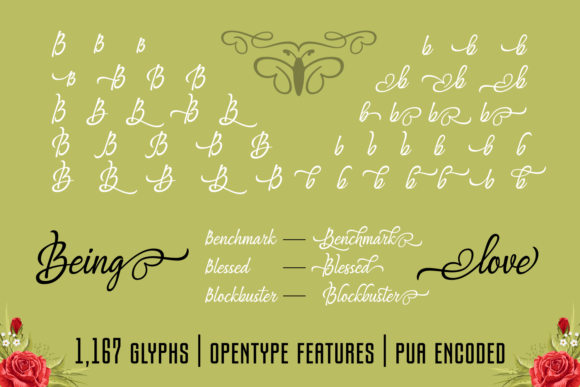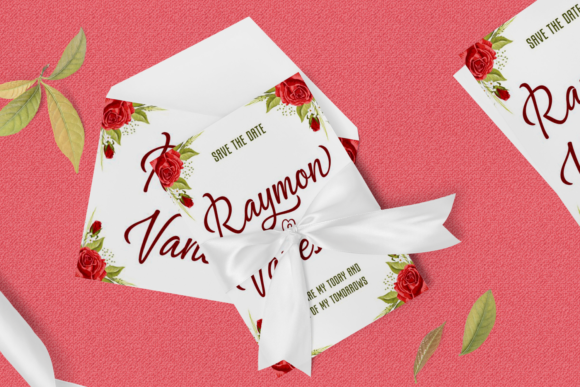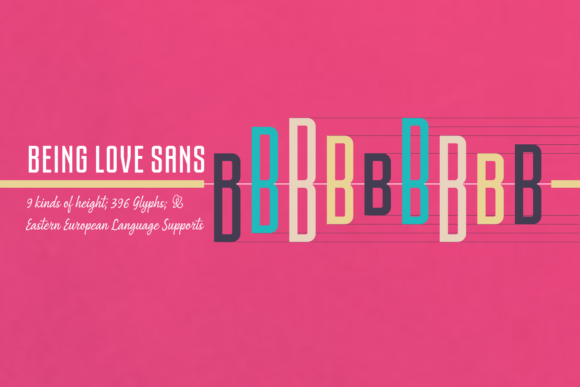
Introduction to Being Love Duo Font
As a designer, have you ever been stuck in a creative rut, struggling to find the perfect font to bring your vision to life? I know I have. But what if I told you there’s a secret weapon that can elevate your designs and make them truly unforgettable? Enter the Being Love Duo Font, a luxurious script and striking sans combination that’s about to become your new go-to design resource.
With its wide variety of swashes and perfect readability, the Being Love Duo Font is a game-changer for any creative project. Whether you’re working on a branding project or designing a wedding invitation, this font duo has got you covered. And the best part? It’s available for free download, making it an accessible high-quality design resource for designers of all levels.
Key Features of Being Love Duo Font
- High-quality, professional font design suitable for creative projects
- Includes two fonts: a bold and a regular version for added versatility
- Features a transparent background, ideal for use on various backgrounds
- Designed at a high resolution of 300 DPI for crisp, clear text
- Perfect for use in various creative projects, such as logos, posters, and social media graphics
Honest Review: Being Love Duo Font
One of the standout features of the Being Love Duo Font is its high-quality design. The transparent background makes it easy to combine with other design elements, and the cursive script is perfect for adding a touch of elegance to any project.
- High-quality design with a transparent background
- Perfect for adding a touch of elegance to any project
- The font may not be suitable for projects that require a more modern or bold font style
- The script may be difficult to read for those with certain vision impairments
Overall, I’m very impressed with the Being Love Duo Font. It’s a great design resource for anyone looking to add a touch of elegance to their creative project. While it may have some limitations, it’s a fantastic addition to any designer’s toolkit.
Getting the Most Out of Being Love Duo Font
To get the most out of Being Love Duo Font, experiment with different font sizes, colors, and styles to create visually appealing designs. Use the font in combination with other design resources, such as graphics and images, to enhance your creative project.
Being Love Duo Font is ideal for a variety of creative projects, including wedding invitations, social media graphics, and blog posts. Its high-quality design and transparent background make it a versatile design resource for any project.